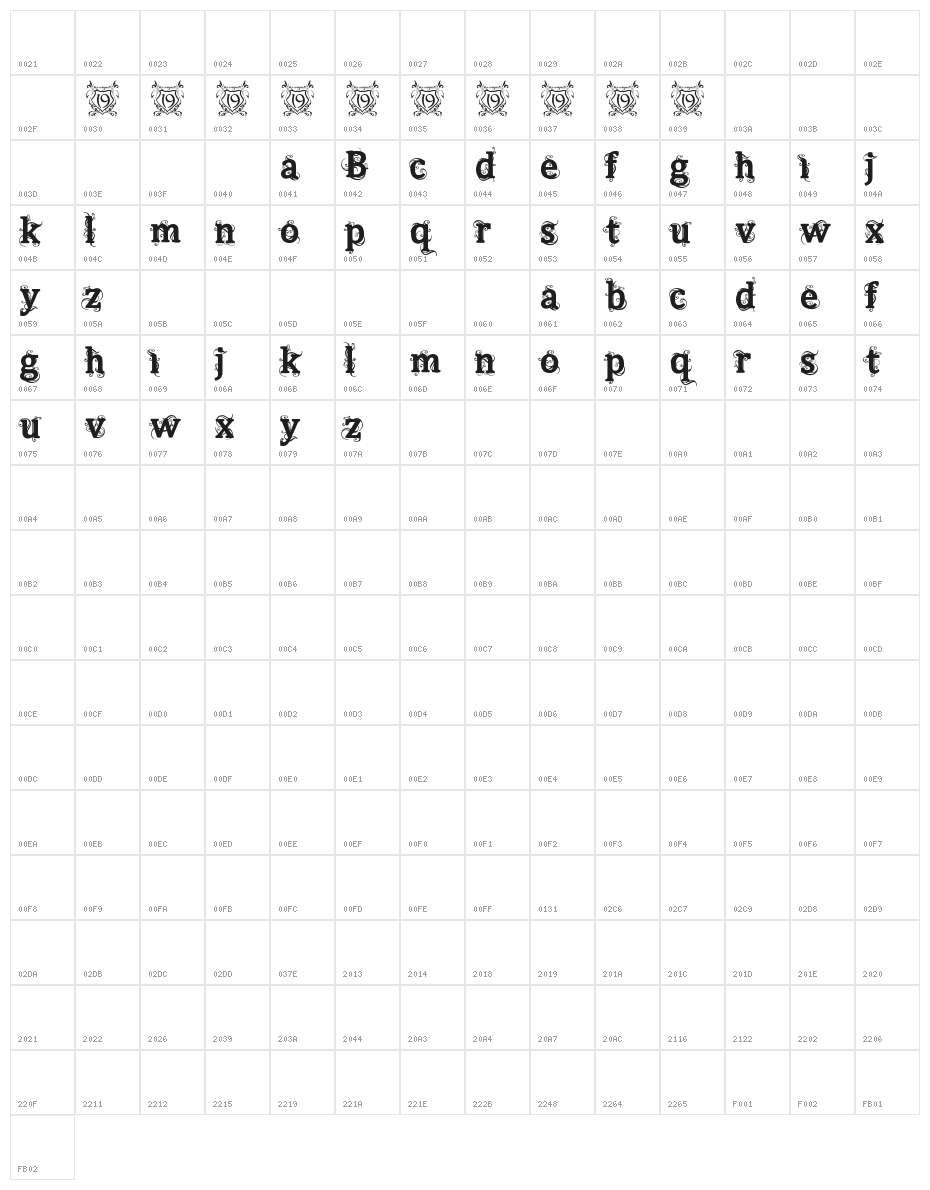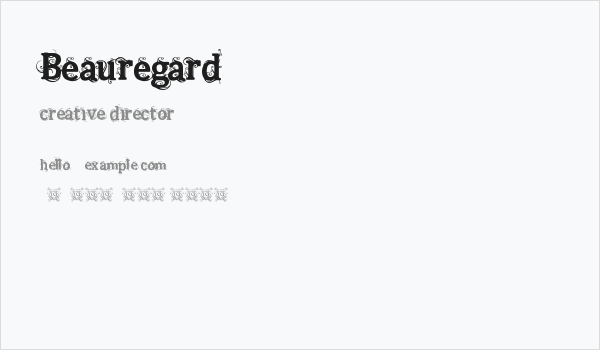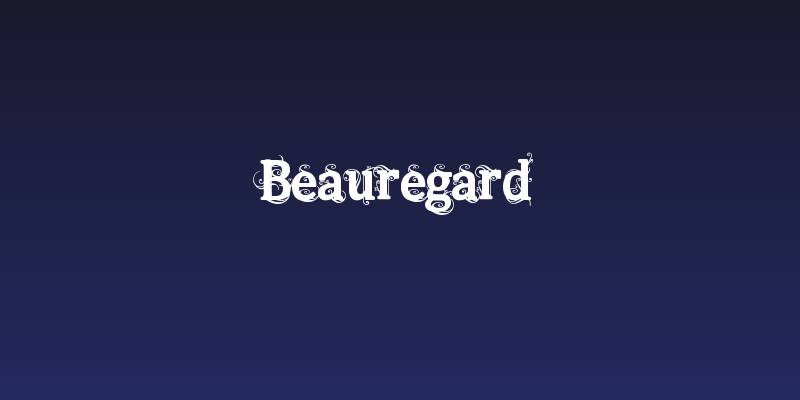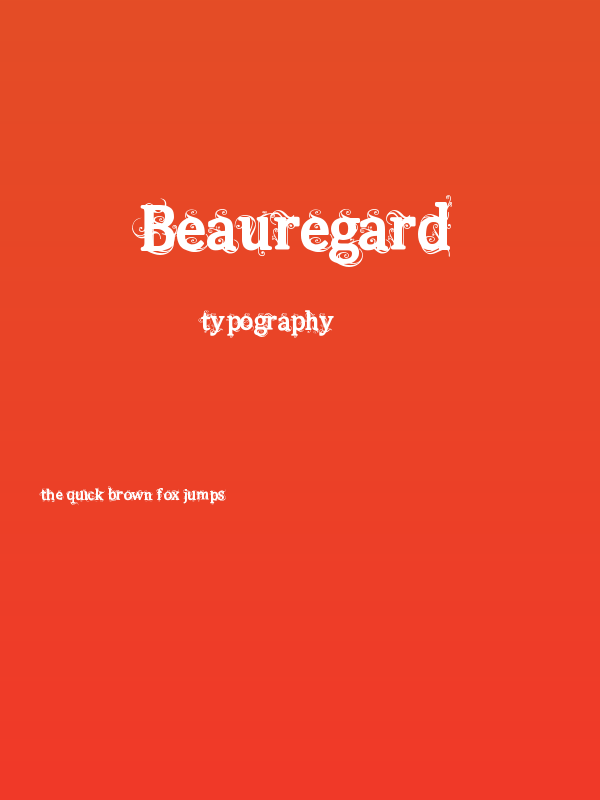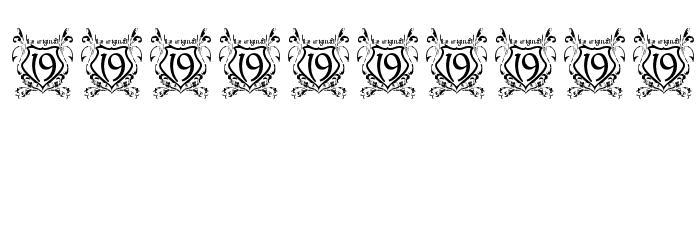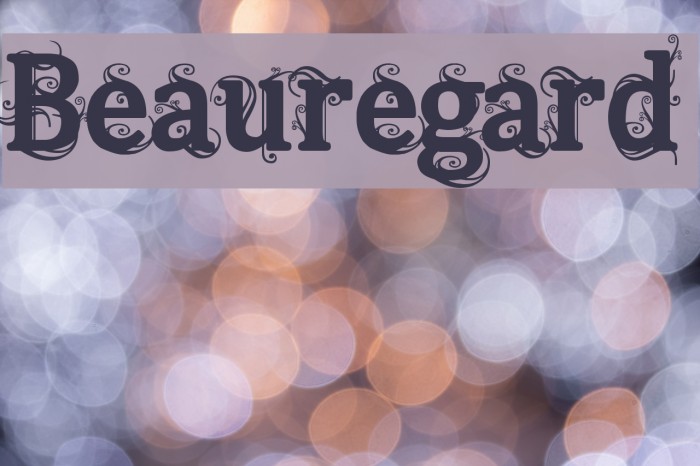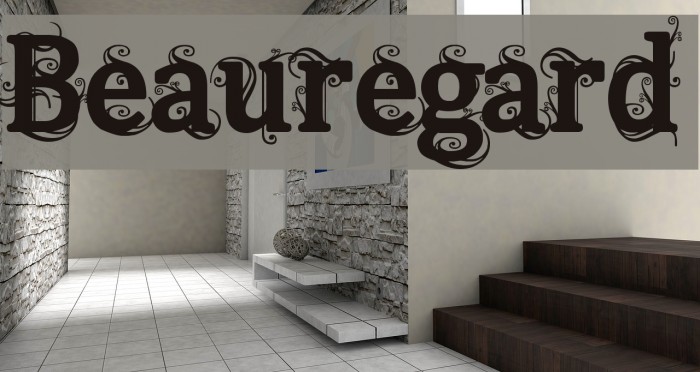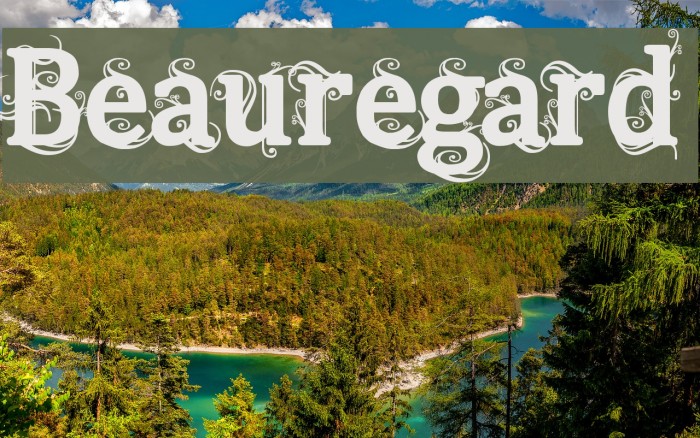
Beauregard Font
Beauregard Description
This font is a highly decorative and ornate typeface, characterized by intricate swirls and embellishments that extend from the main strokes of each character. The letters are bold and have a strong presence, making them ideal for attention-grabbing designs. The uppercase and lowercase letters maintain a consistent style, with the embellishments adding a touch of elegance and complexity. The numerals and special characters are equally adorned, ensuring a cohesive look across all elements. This font is perfect for projects that require a dramatic and artistic flair.